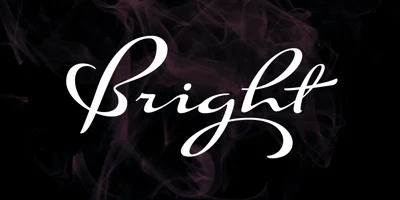
Suave Script Pro
Suave Script Pro Font
Suave Script Pro Font is perfect for wedding invitations, luxury brand logos, fashion magazines, restaurant menus, book covers, greeting cards, social media graphics, and high-end packaging designs.
What makes Suave Script Pro Font exciting is its sophisticated elegance and fluid handwritten style that brings a premium touch to any design project. This script font combines classic calligraphy traditions with modern design sensibilities, creating stunning visual impact for both digital and print applications.
The Suave Script Pro Font family includes multiple weights and stylistic alternates, offering designers extensive flexibility with regular, bold, and italic variations, plus decorative swashes and ligatures for enhanced customization.
This elegant typeface delivers exceptional readability while maintaining its artistic charm, making Suave Script Pro Font an essential addition to any designer's toolkit. The font's versatility shines in branding projects, where its refined character helps establish sophisticated brand identities. Whether you're creating romantic wedding stationery or upscale restaurant branding, this font provides the perfect balance of legibility and style. The carefully crafted letterforms ensure consistent quality across all applications, from large-scale signage to delicate invitation details. Professional designers consistently choose this font for projects requiring that perfect blend of elegance and contemporary appeal, making it a valuable resource for creative professionals worldwide.